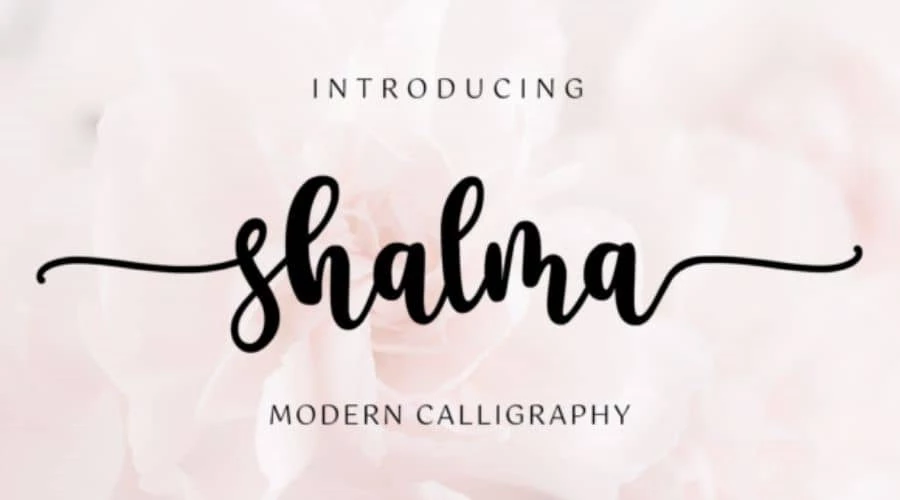
Shalma font is a lovely calligraphy typeface that includes swashes. It’s a playful and adorable font. TTF and OTF fonts are included in the Font. The Font is encoded with PUA. The typeface has unique characters that are fully accessible without the use of additional design software. The fonts support Afrikaans, Albanian, Catalan, Danish, Dutch, English, Icelandic, Italian, Spanish, Portuguese, German, Swedish, Norwegian, Polish, Indonesian, Zulu, and more. It’s a lovely script calligraphy font.
This typeface comes with extra flourishes, so you may personalize your letters however you like! To personalize, simply weld them to your letters! Girinesia created it and shared it. The Font was uploaded on April 22, 2020. It’s a bold and lovely handwritten typeface that’s been made to become a true favorite. Because this Font is PUA encoded, you have immediate access to all of the amazing glyphs! It also features ligatures and variant symbols, among other things. It does not necessitate the usage of any specific software. Simply download the Font, start typing, and you’re done! You’ll need Photoshop, Illustrator, or InDesign CC version or higher, as well as another application that supports alternative symbols and ligatures, to utilize alternative symbols or ligatures. This handwritten typeface’s natural vibe will benefit every part of your design.
This typeface can be used for invitations, logos & branding, photos, advertisements, watermarks, social media posts, product packaging, product designs, labels, wedding designs, stationery, special events, or anything else that requires a handwritten feel. It will also be used to create beautiful images and text in many colors and styles.